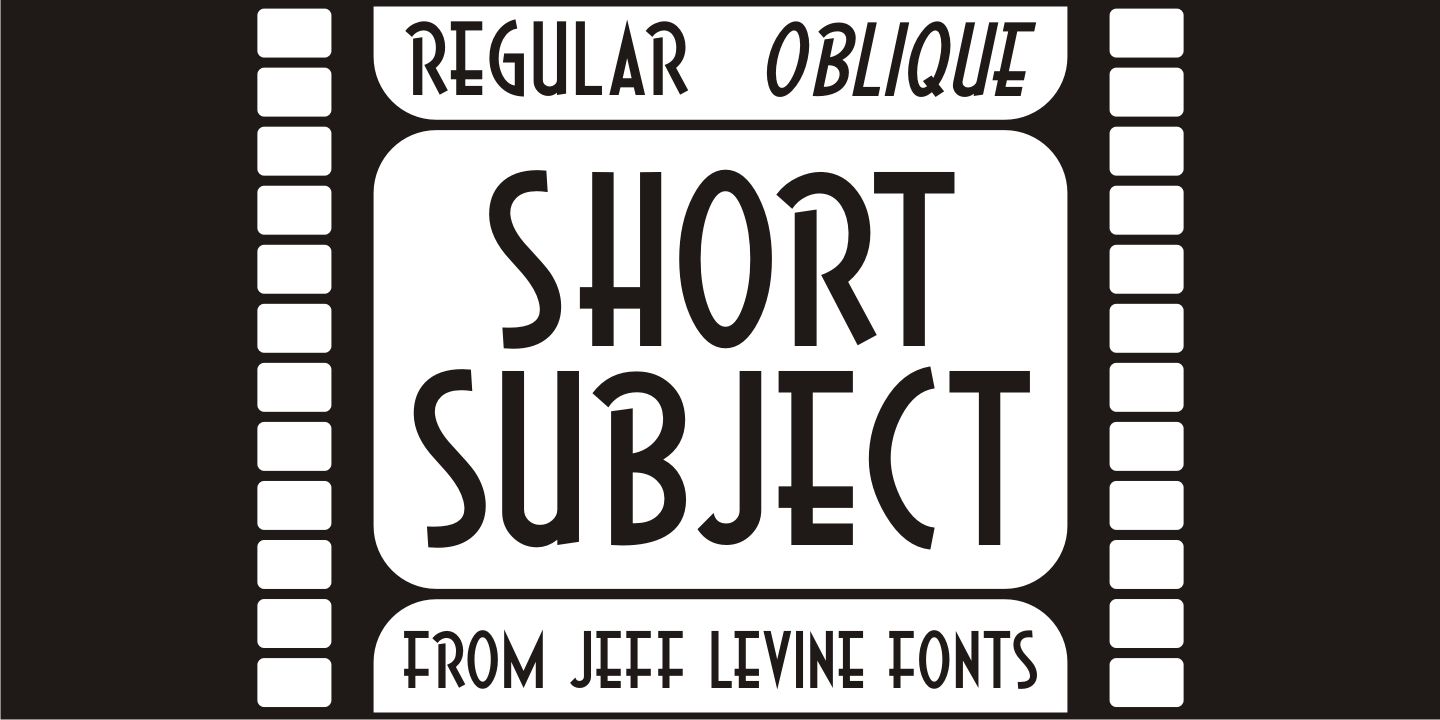
Short Subject
Loosely based on some hand-lettered title cards from various vintage Columbia Pictures two-reel comedies, Short Subject JNL is a pleasant sans serif typeface that is aptly suited for titling and other similar applications.